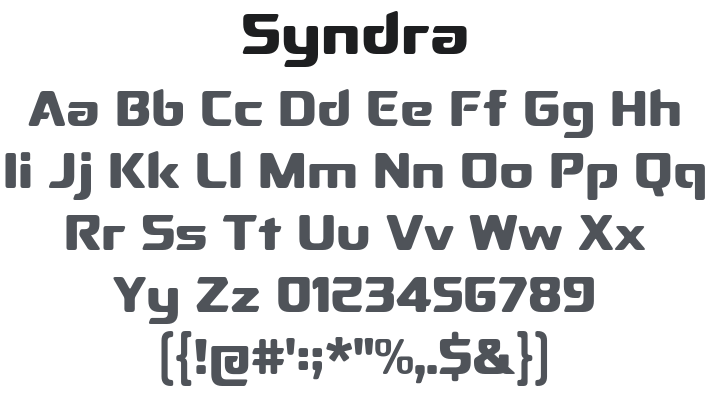
Syndra Font
About Syndra
Syndra is a geometric sans serif built with the precision of engineered components. Crisp forms, angular cuts, and controlled curves give the design a strong architectural presence while subtle softening keeps it approachable.
Its clean structure works well for tech interfaces, branding, packaging, and editorial design where clarity and personality need to coexist. With broad language support and a versatile character set, Syndra delivers confident, modern typography for global projects.